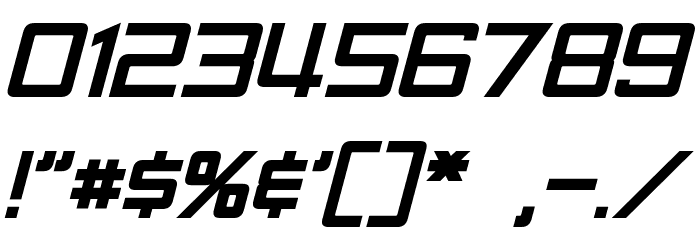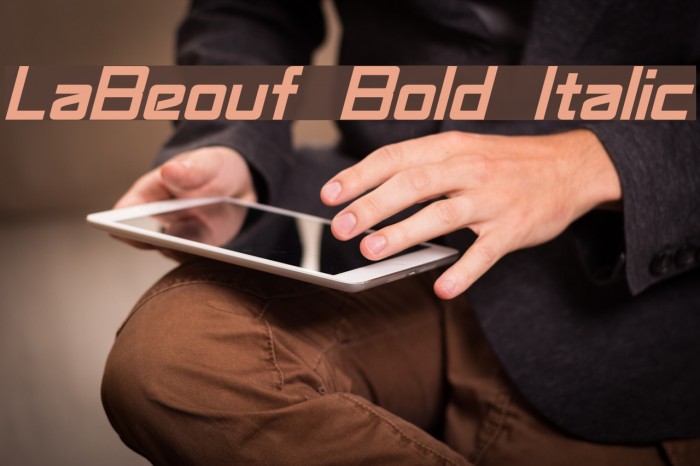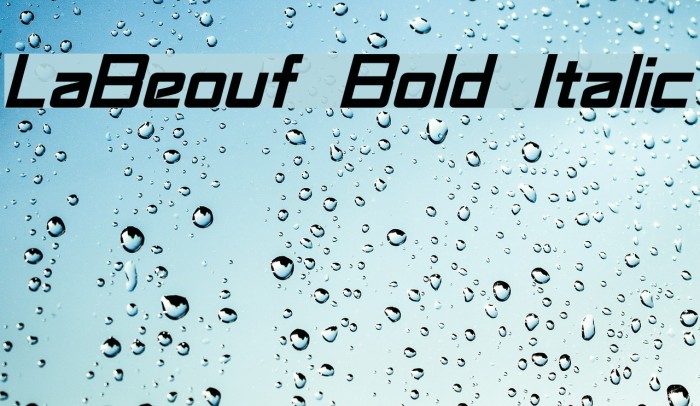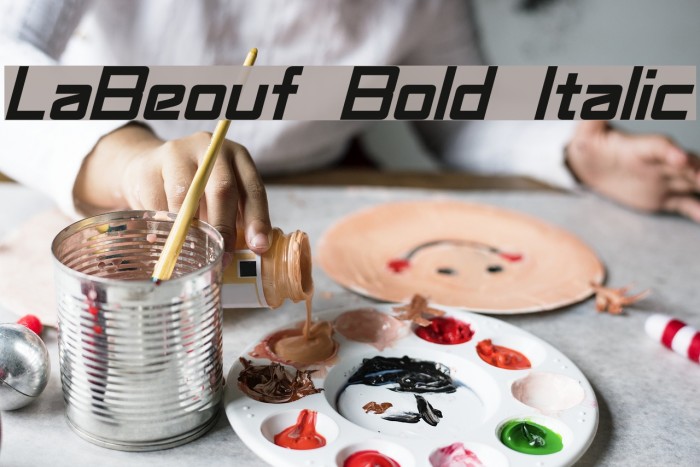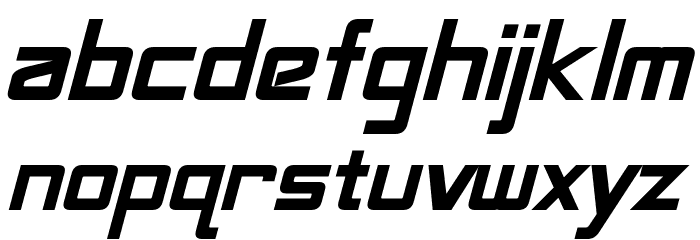
LaBeouf Bold Italic Font
This font exhibits a bold and italicized style with a modern, angular design. The characters are slightly slanted, giving a sense of motion and dynamism. The uppercase and lowercase letters maintain a consistent geometric structure, with sharp edges and clean lines. The numbers and special characters follow the same aesthetic, ensuring uniformity across all glyphs. The font's boldness is evident in its thick strokes, which are evenly distributed, providing a balanced appearance. The italic slant adds a touch of elegance, making it suitable for both contemporary and futuristic designs.
A bold, italicized font with a modern, angular design.
• Proposed Projects: Ideal for branding, advertising, and digital media projects that require a modern and dynamic look.
• Category: Sans-Serif
• Bold: Yes
• Italic: Yes
• Weight: Bold
• Width: Normal
• Character Spacing: Normal
• Contrast: Low
• Overall Style: Modern
• Use Case: Headlines, Logos